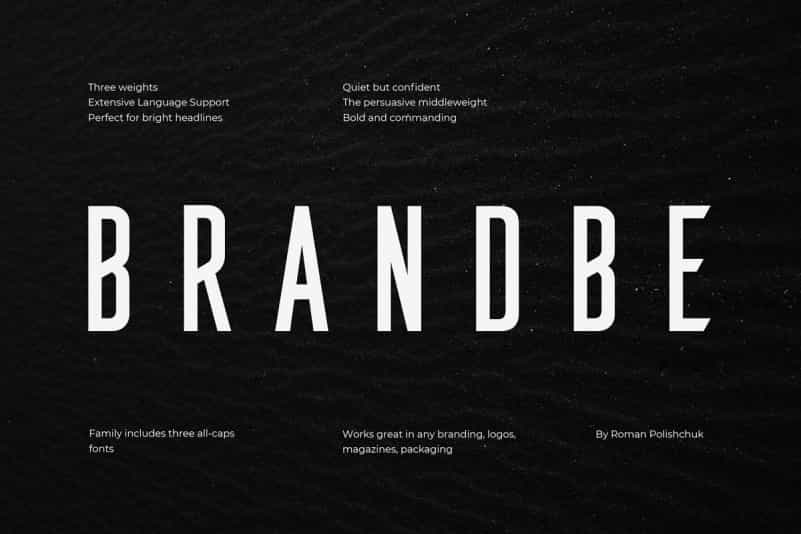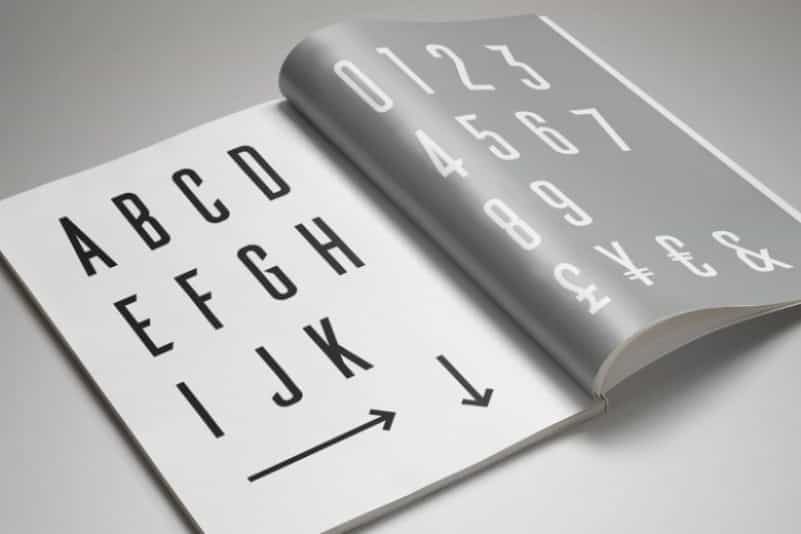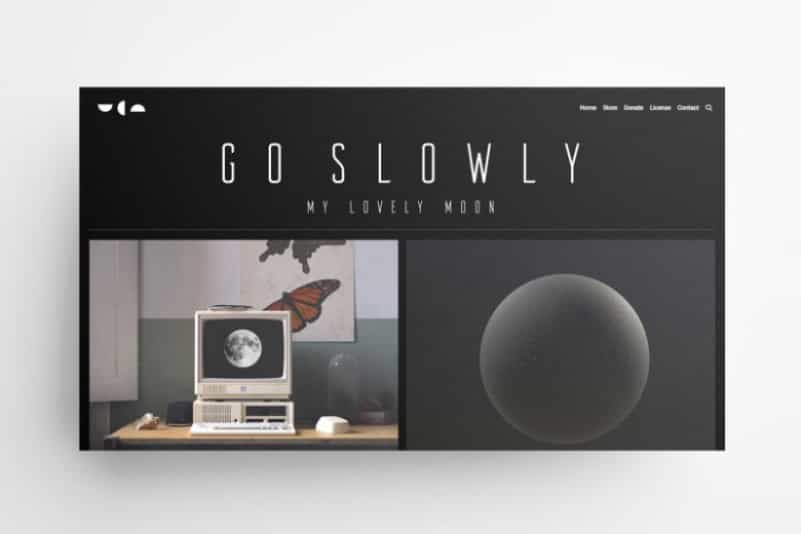
Brandbe Font is a new sans serif font that links us to the contemporary sans serif brandbe font. This font has geometric shapes and looks very polished, it can be best described as minimalist! It is an advertisement created by a Roman Polishchuk. It is a simple and neat font, which has well-defined shapes of the letters, symbols, and numbers.